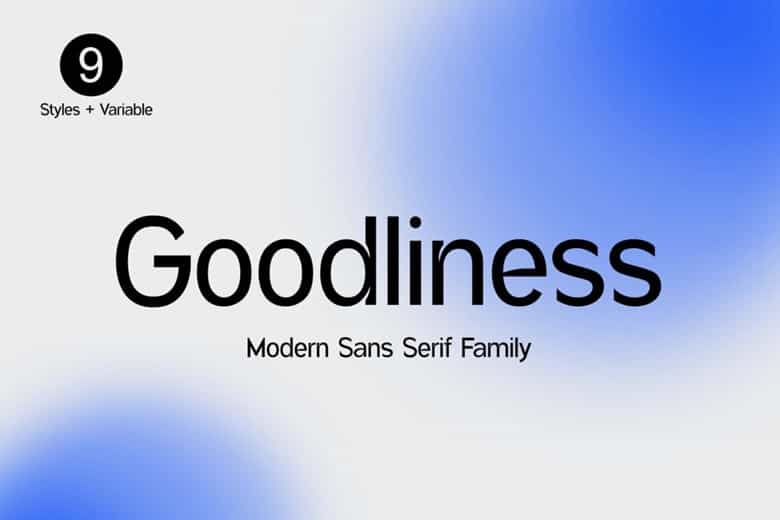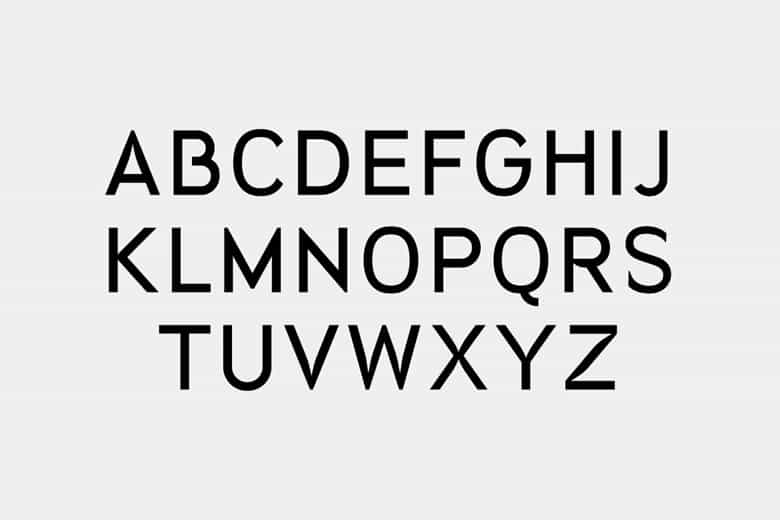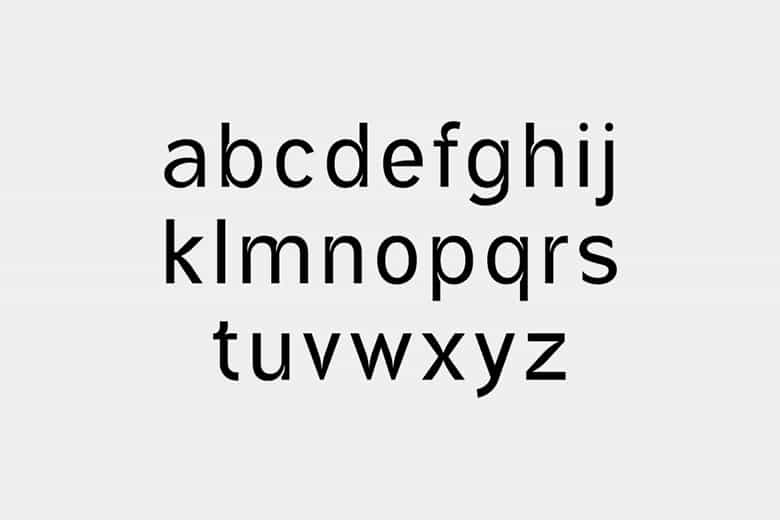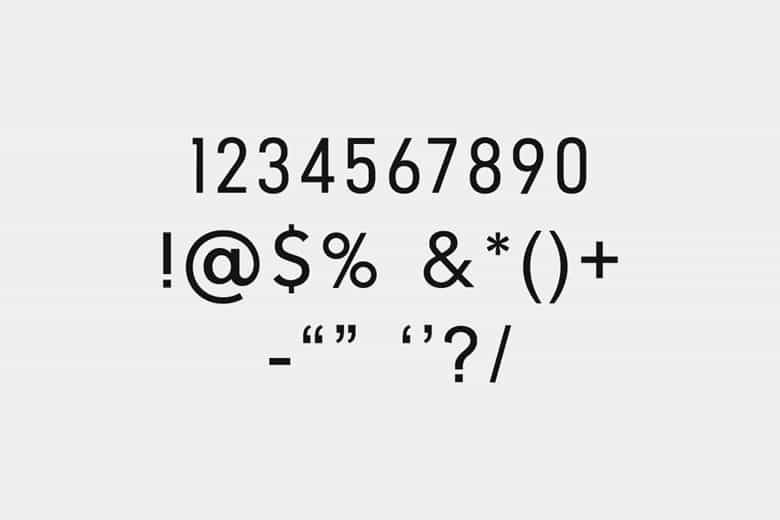
Goodlines is an elegant and modern sans serif family. This font is perfect for many purposes such as: stationery, logo, wedding, typography quotes, magazine or book covers, website headers, branding and many others. In addition, fashion related brand or editorial design can be both androgenic and gynoid.